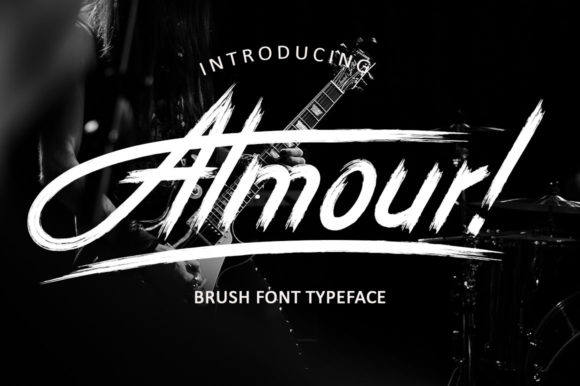
Welcome to the world of Almour!, a font that will ignite your creativity and leave a lasting impression on all who lay eyes upon it. Step into a realm where elegance and originality collide, where every letter dances with undeniable charm.
Almour! is not merely a font; it's an experience. Its meticulously crafted brushstrokes evoke a sense of authenticity and ручной труд, adding a personal touch to your designs. Whether you're a seasoned designer or just starting your creative journey, Almour! will elevate your projects to new heights.
Indulge in the versatility of Almour!, a font that effortlessly adapts to a myriad of design styles. From captivating magazine covers that demand attention to stylish logos that exude professionalism, Almour! possesses the power to transform your vision into a reality.
Unleash your imagination with Almour!'s captivating character. Its ability to convey emotions through its unique form makes it the perfect choice for personal branding, invitations, and any occasion that calls for a touch of heartfelt expression.
Dive into the world of Almour! and discover a font that will ignite your passion and leave an unforgettable mark on your audience. Its exceptional quality and versatility will empower you to create designs that stand out from the crowd and leave a lasting impression.